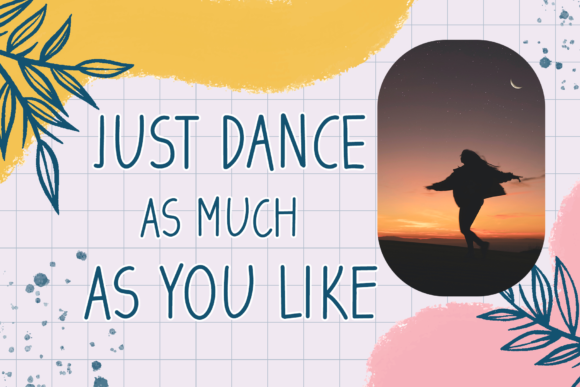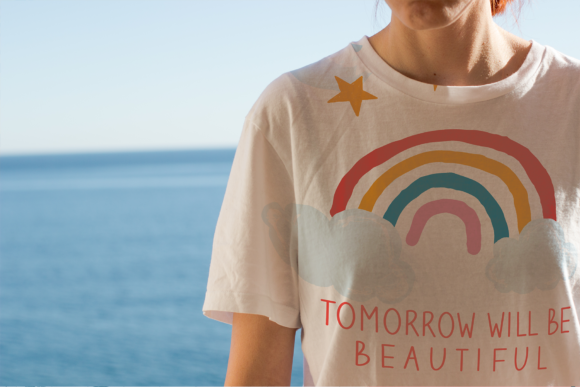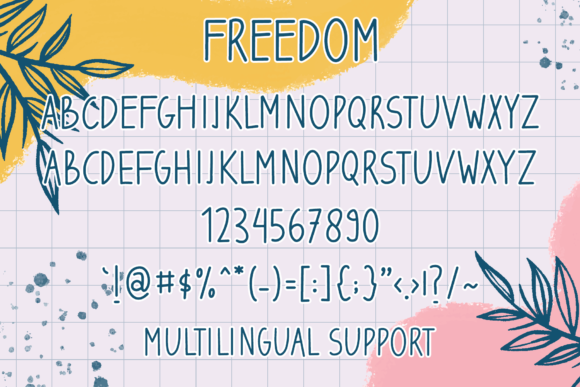
The Quest for the Perfect Font: Discovering Freedom Font
Ah, the eternal search for the perfect font. I recall a particularly frustrating design moment when I was working on a project for a client’s chalkboard quote. I had a clear vision of a cute, handwritten font that would bring a personal touch to the design, but my usual go-to fonts just weren’t cutting it. That’s when I stumbled upon Freedom Font, a gem that has since become a staple in my design toolkit.
An Honest Review of Freedom Font
So, what makes Freedom Font so special? Let’s dive into the good stuff and, of course, a few quirks I’ve discovered along the way.
What I Love About Freedom Font ✨
- ✅ Authentic Look: Freedom Font boasts an authentic, handwritten look that’s perfect for chalkboard quotes, teaching materials, and more.
- ✅ Cute and Simple: Its simplicity and cuteness make it versatile for various design projects, from educational materials to social media graphics.
- ✅ Easy to Read: The font’s clear and legible, making it ideal for designs where readability is key.
While Freedom Font is a fantastic addition to any design project, there are a few things to keep in mind:
- ⚠️ Limited Extras: Don’t expect a vast array of extra features or styles; Freedom Font keeps it simple and focused on its core strengths.
- ⚠️ Not Ideal for Body Text: Due to its handwritten nature, Freedom Font is best suited for headings, titles, or short paragraphs rather than lengthy body text.
The Story Behind Freedom Font
While the origins of Freedom Font are not well-documented, it’s clear that the designer aimed to create a font that embodies simplicity, authenticity, and a sense of freedom. Imagine a designer, inspired by traditional chalkboard lettering, sitting down with a piece of chalk and a blackboard, determined to craft a font that captures the essence of handwritten text in all its imperfections and charm.
| Font Name | Freedom Font |
| Author | Phantom Creative Studio |
Q: Is Freedom Font available in different styles or weights?
A: Freedom Font keeps it simple with its core style, which is part of its charm. It may not have multiple weights or styles, but its simplicity is what makes it so versatile.
Q: How does Freedom Font compare to other handwritten fonts?
A: Freedom Font stands out for its authentic, chalkboard-like appearance. While other handwritten fonts may offer more variations or a more polished look, Freedom Font’s simplicity and charm make it unique.